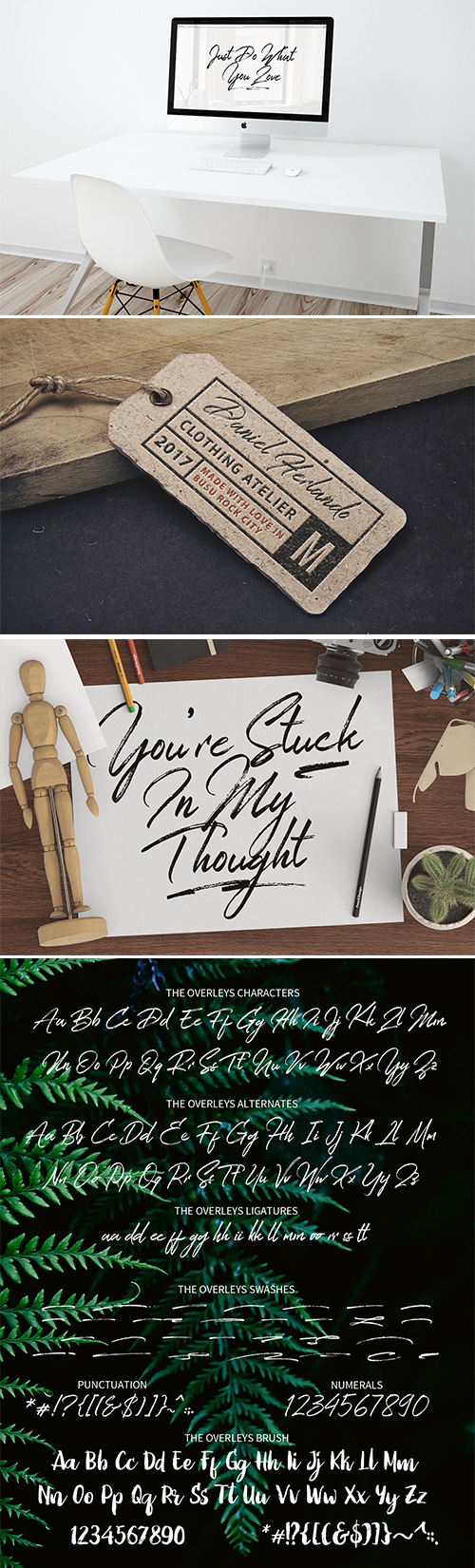
Handwritten font with quick dry strokes and a signature style. perfect for branding projects,
homeware designs, product packaging or simply as a stylish text overlay to
any background image or posters.
Alternates !